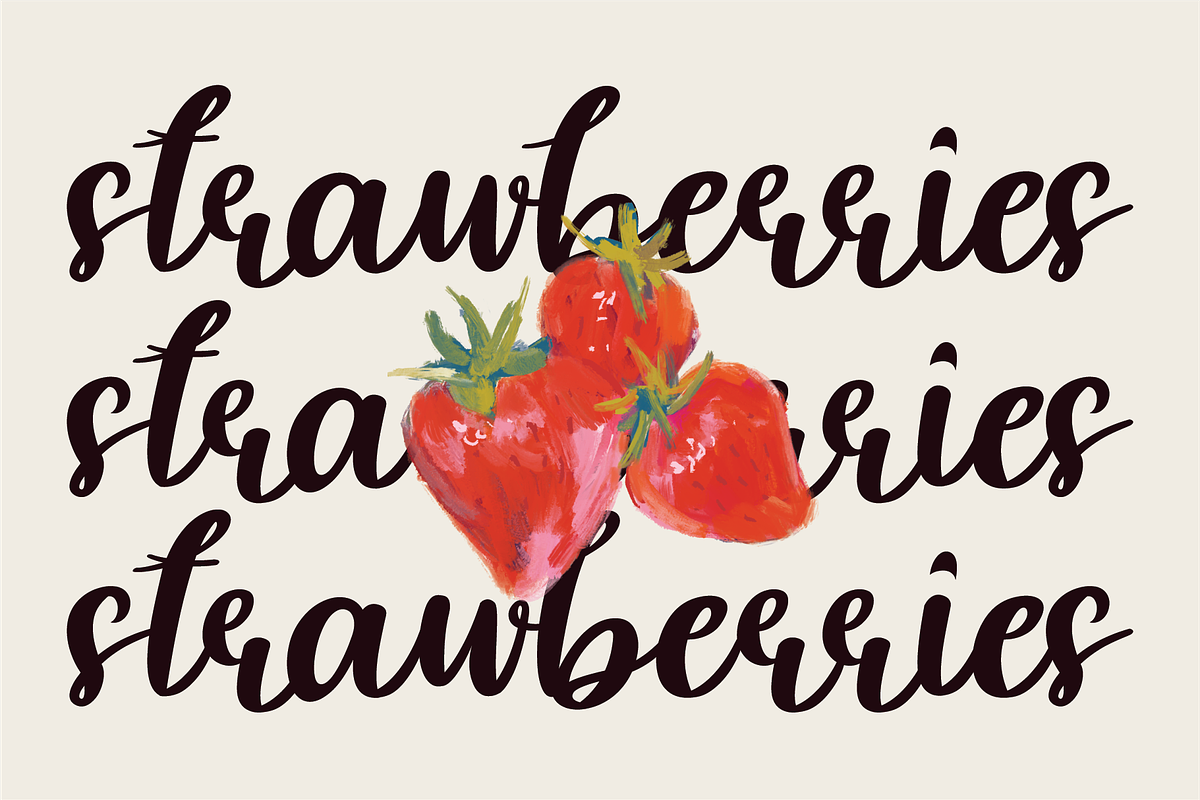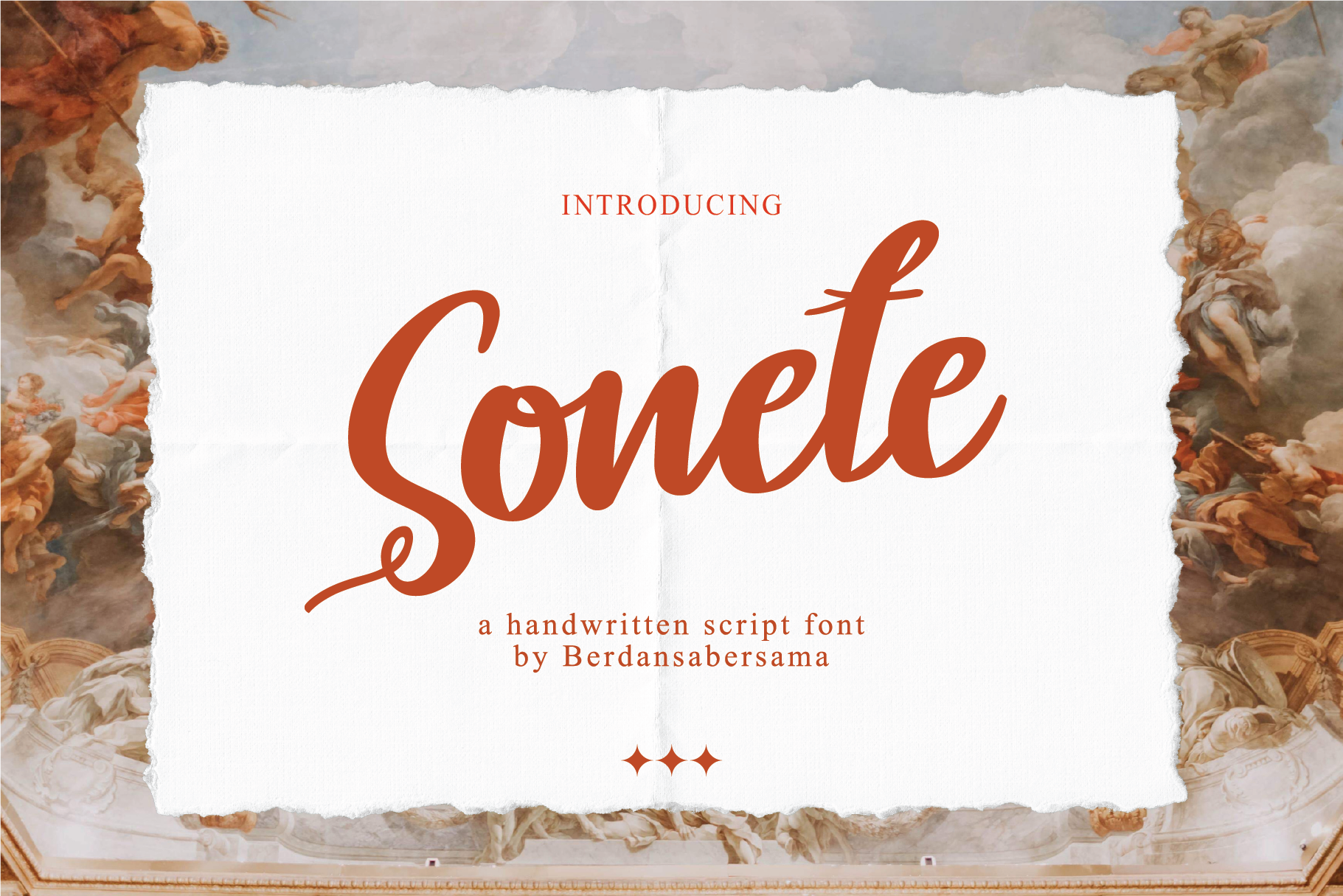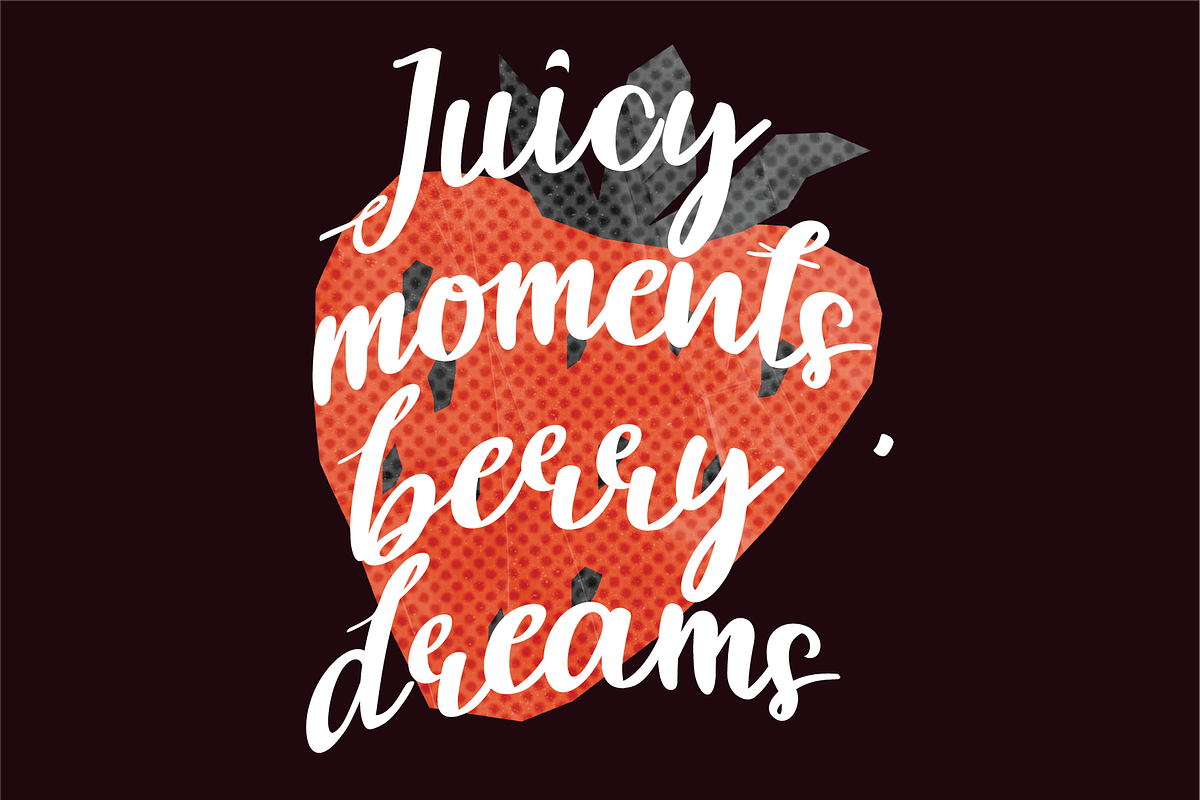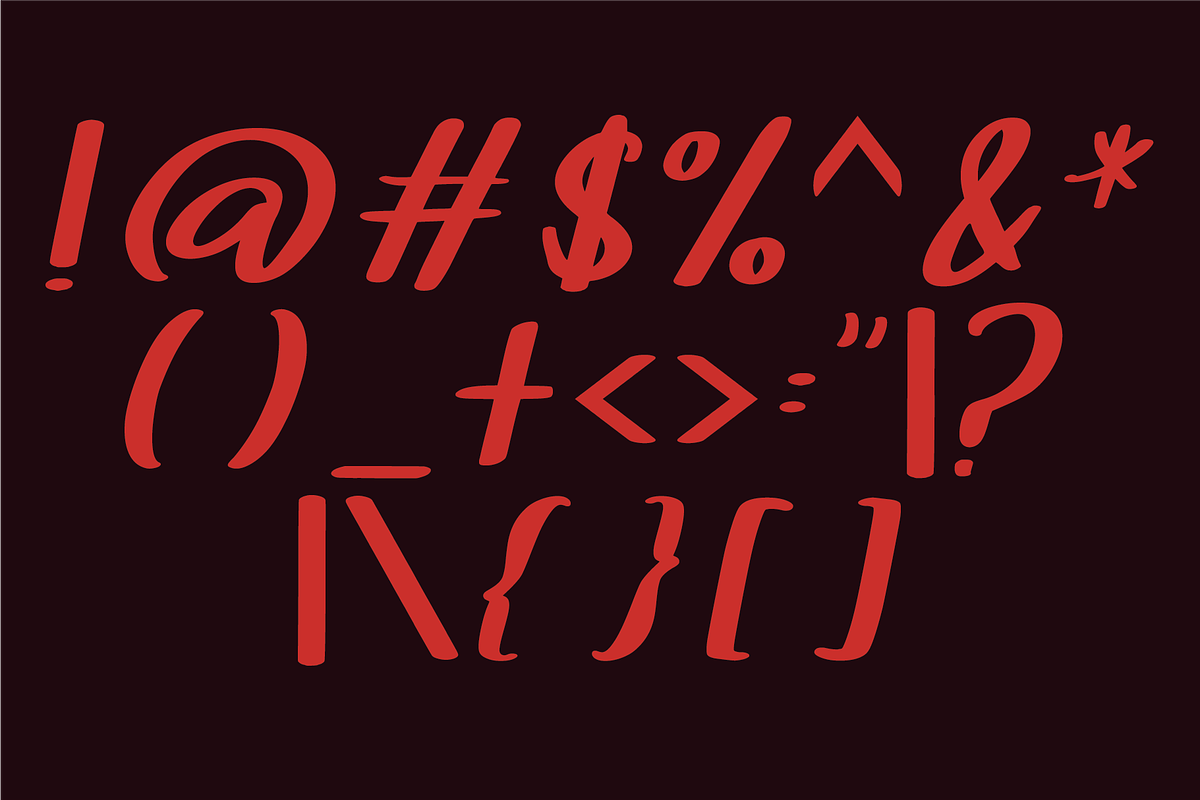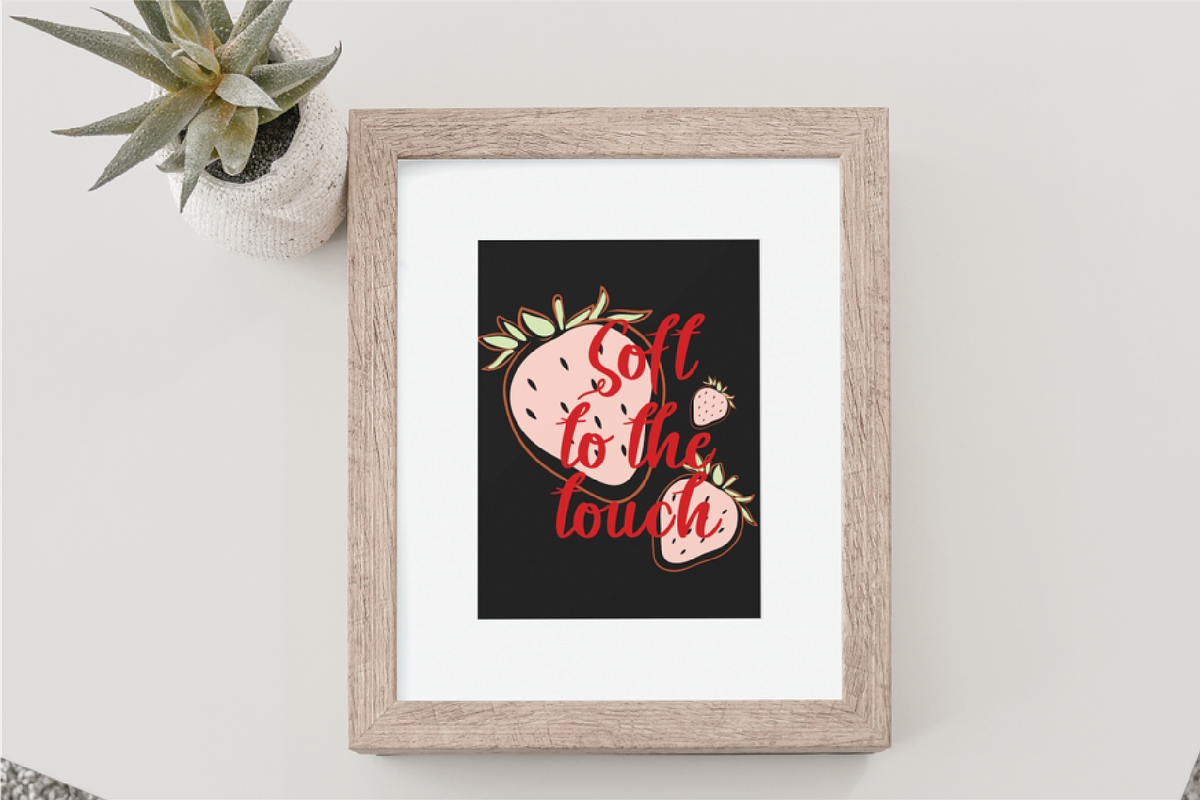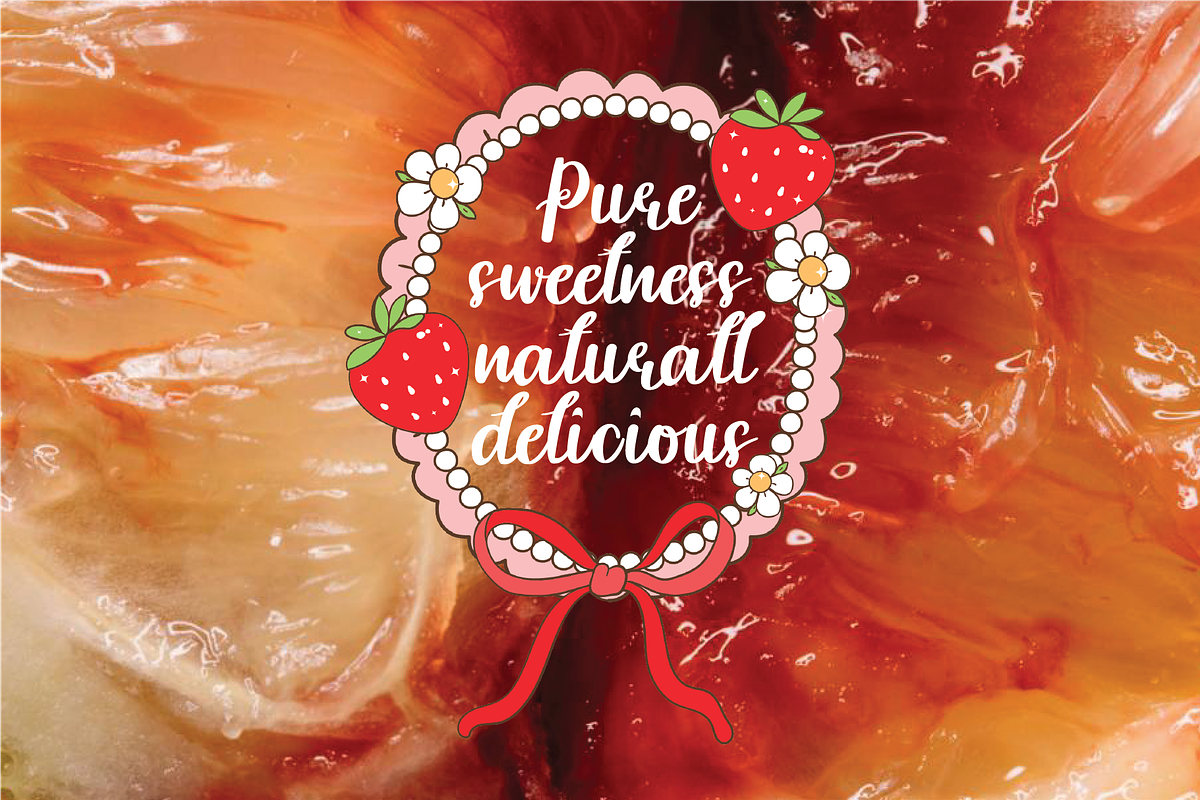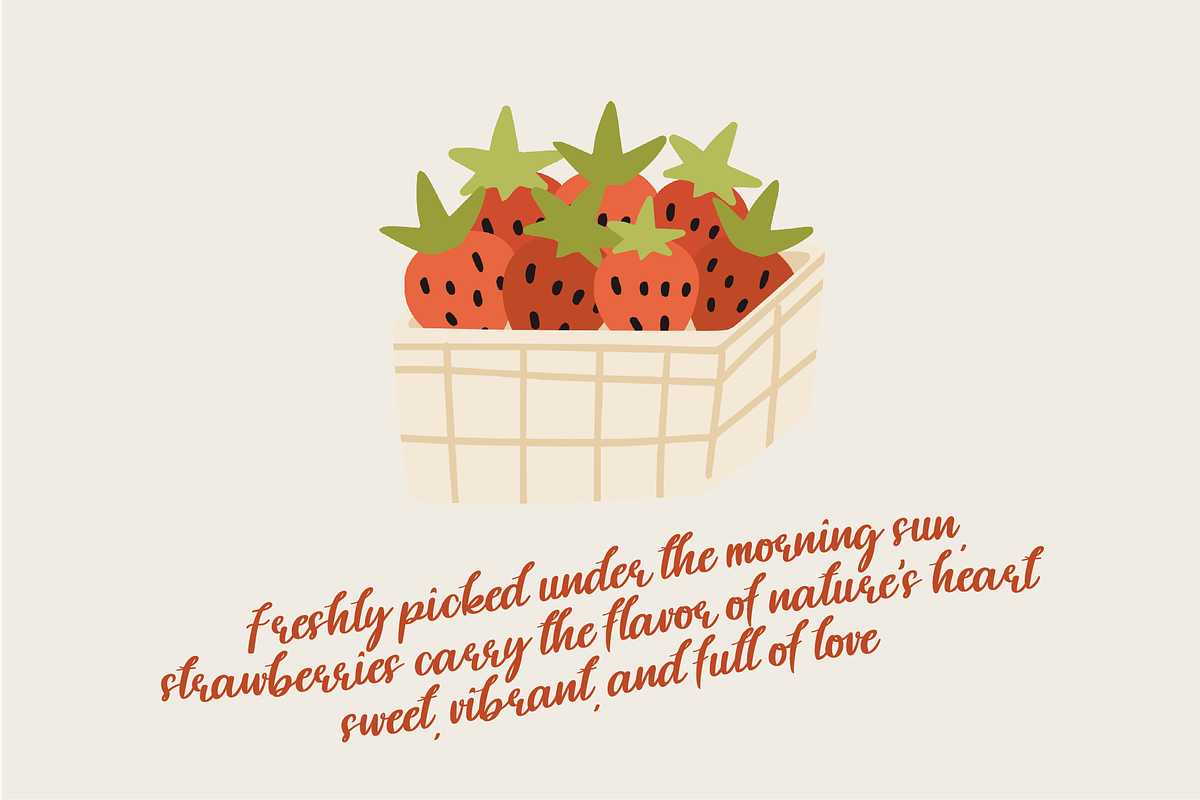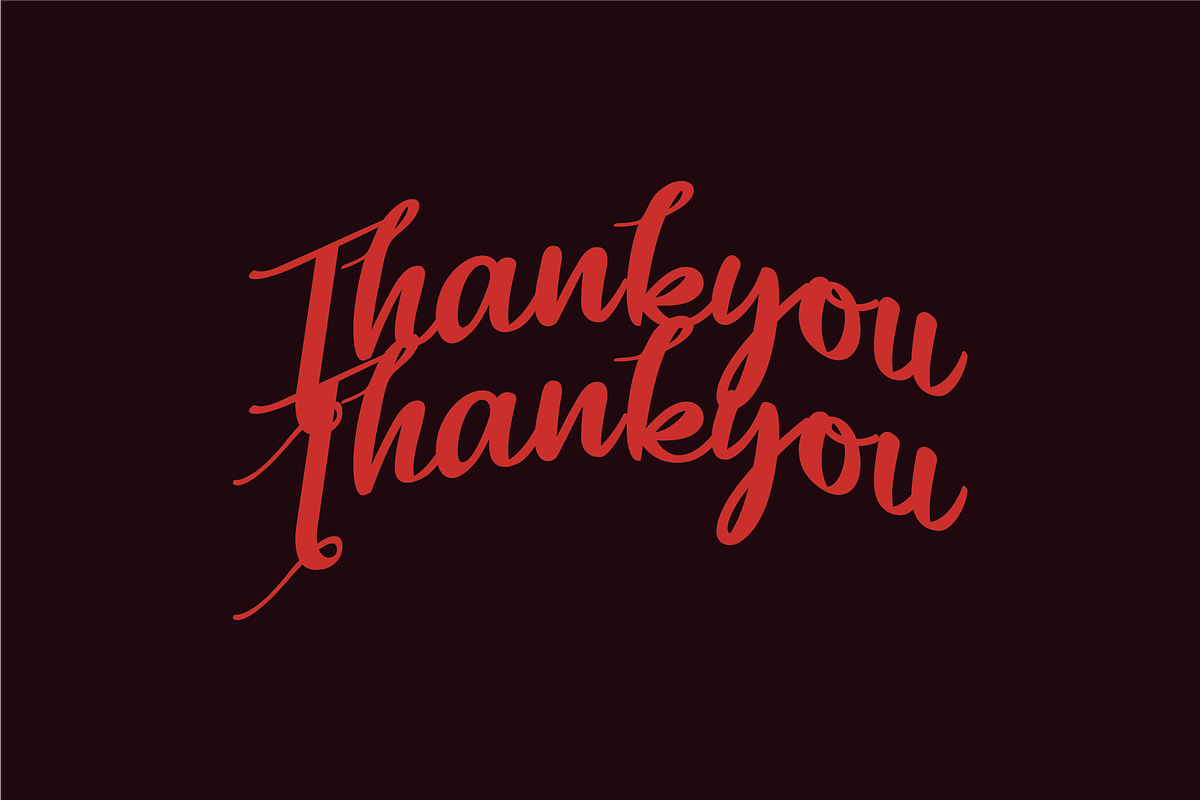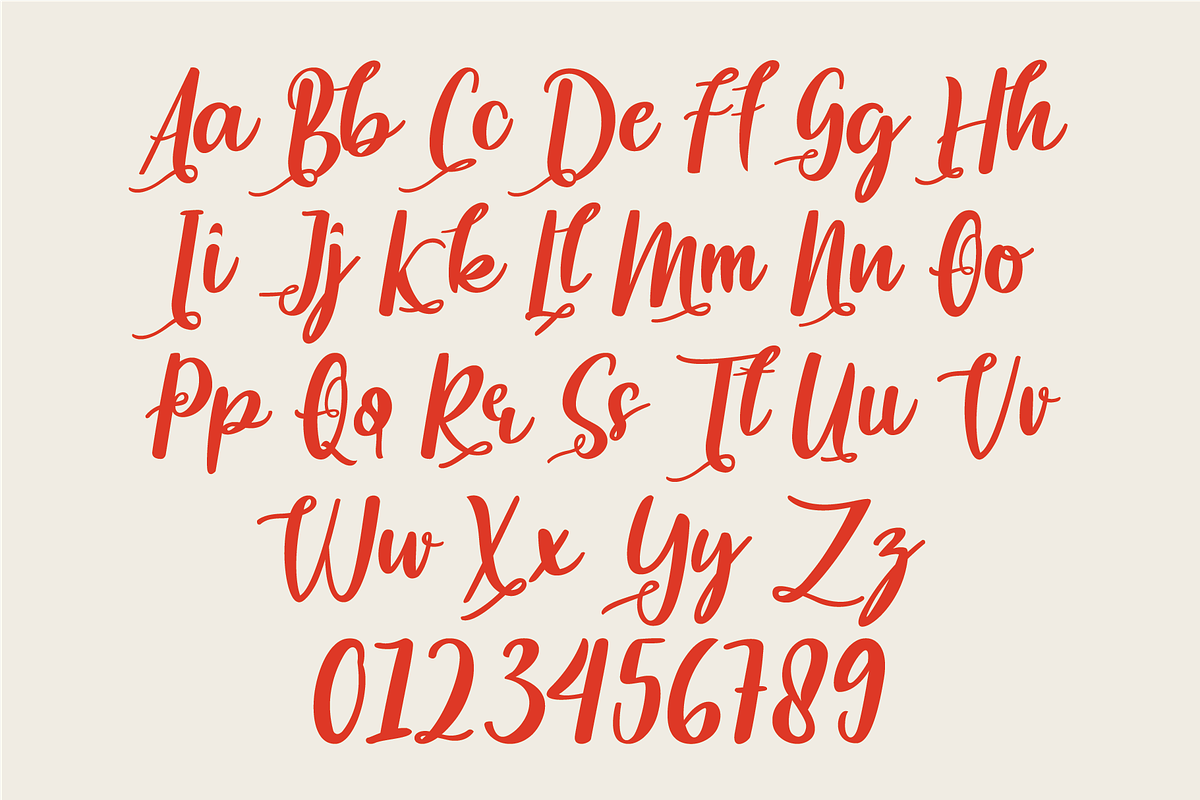
Sonete Script Font
Sonete is a refined handwritten script font that exudes elegance and charm. Its graceful curves and confident strokes evoke the timeless beauty of handwritten poetry — expressive yet sophisticated.